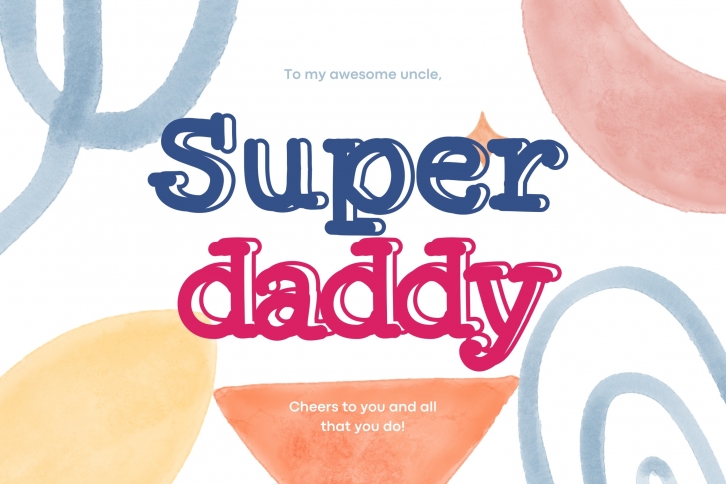
Super Daddy is a simple and sweet slab serif font. It can easily be matched to an incredibly large set of projects, so add it to your creative ideas and notice how it makes them stand out!